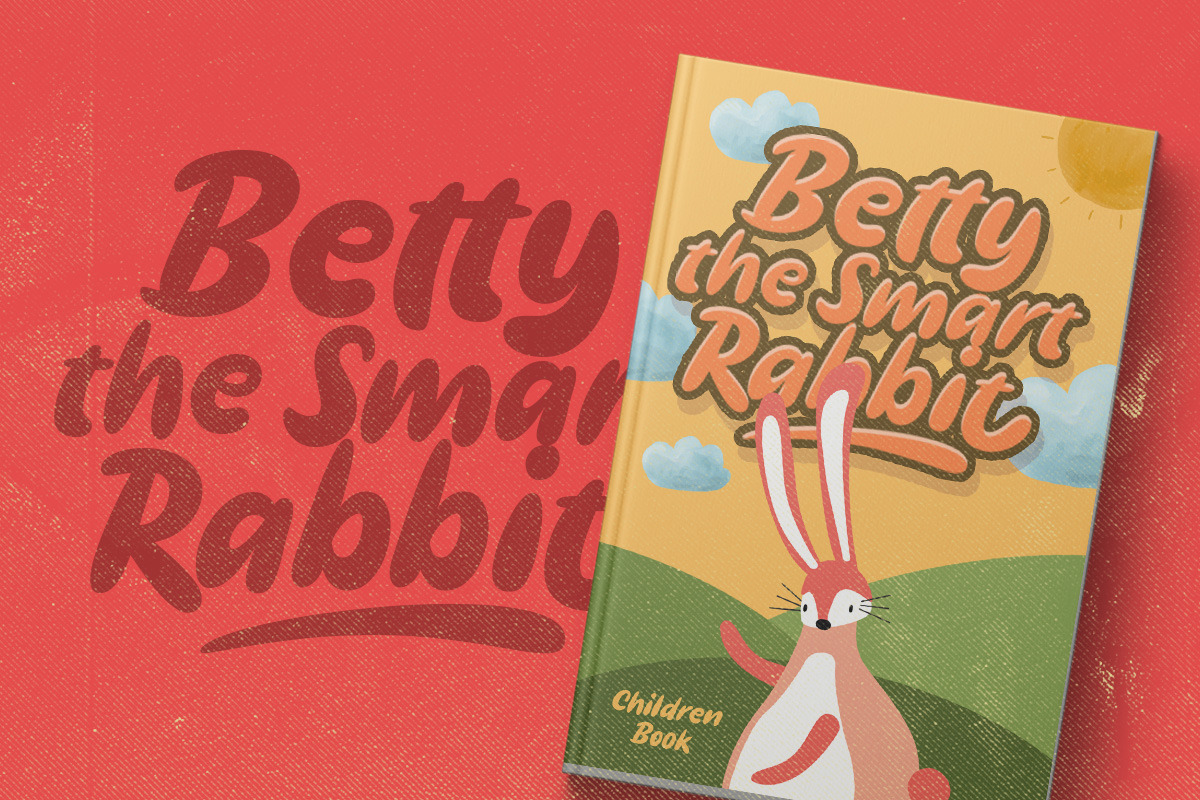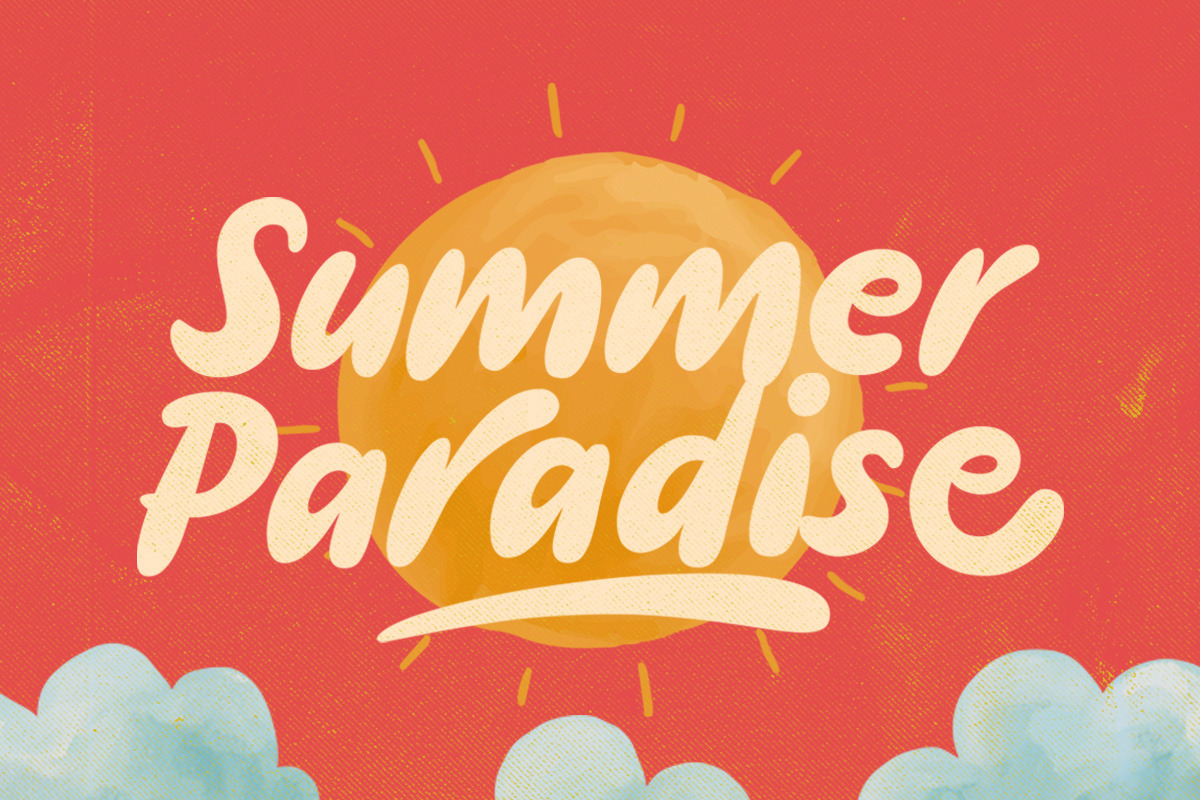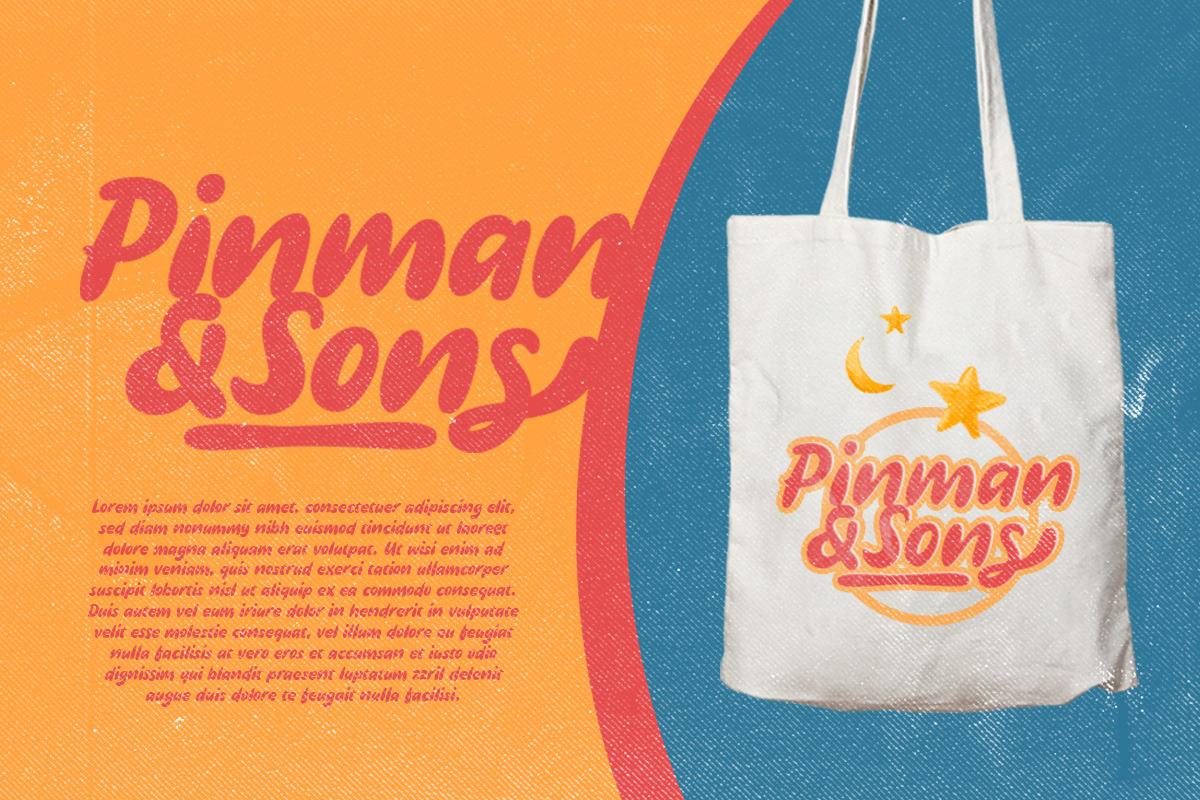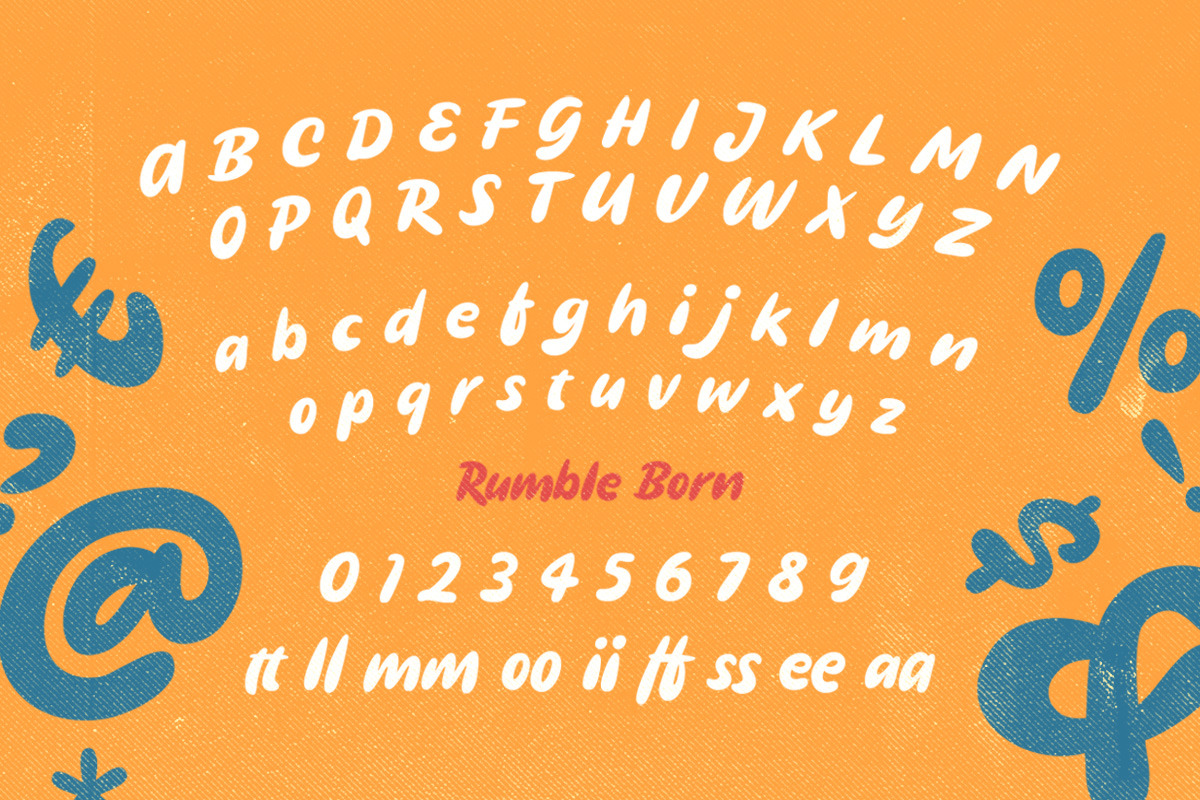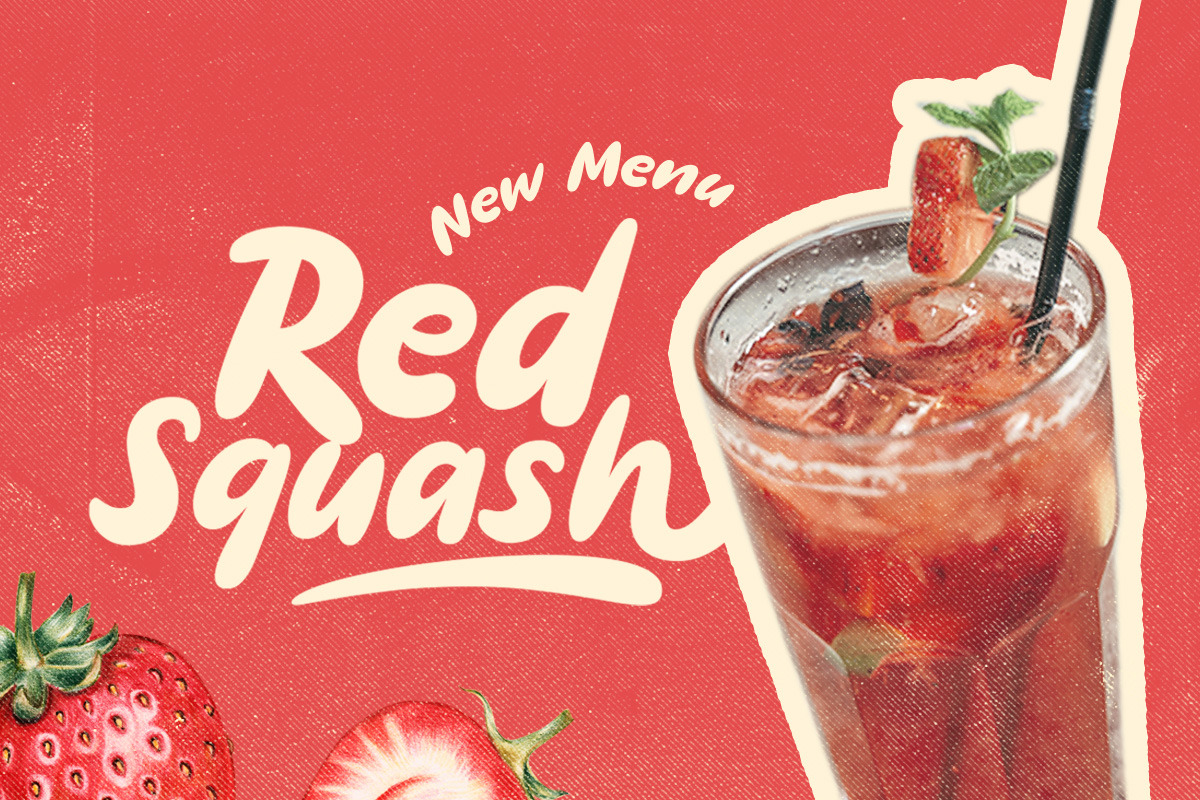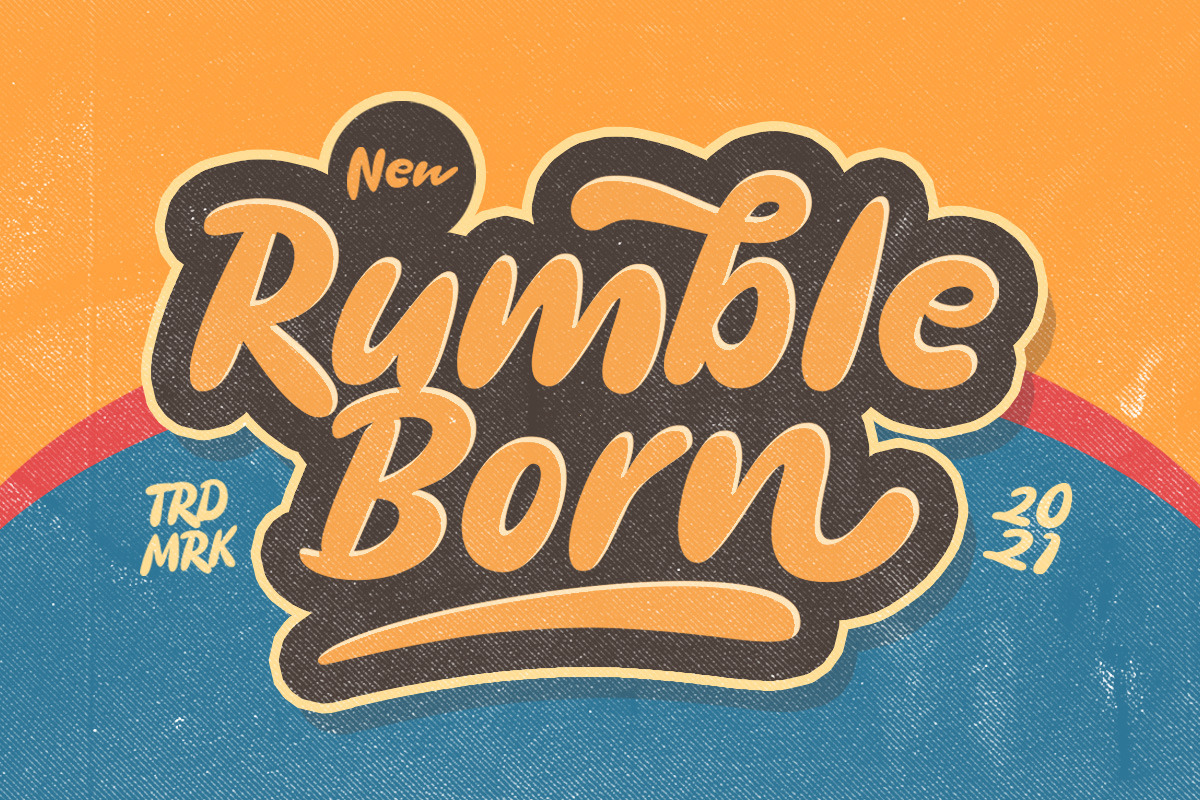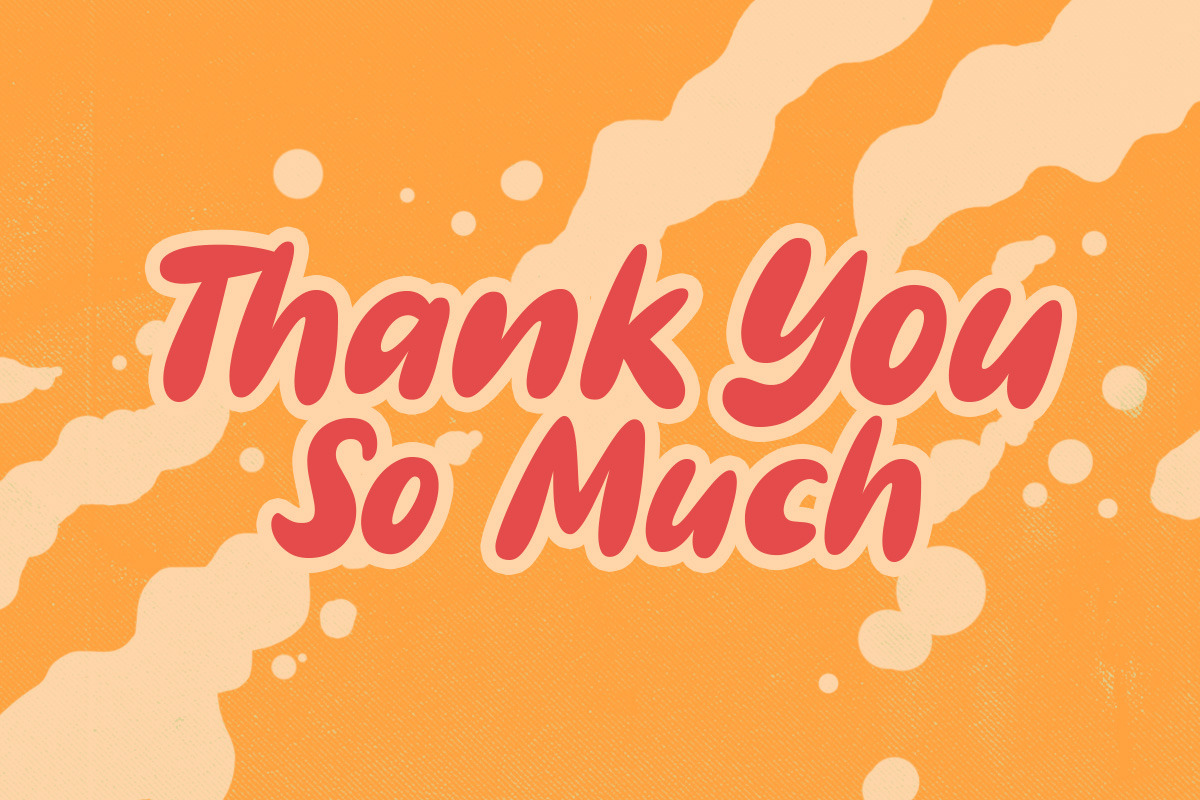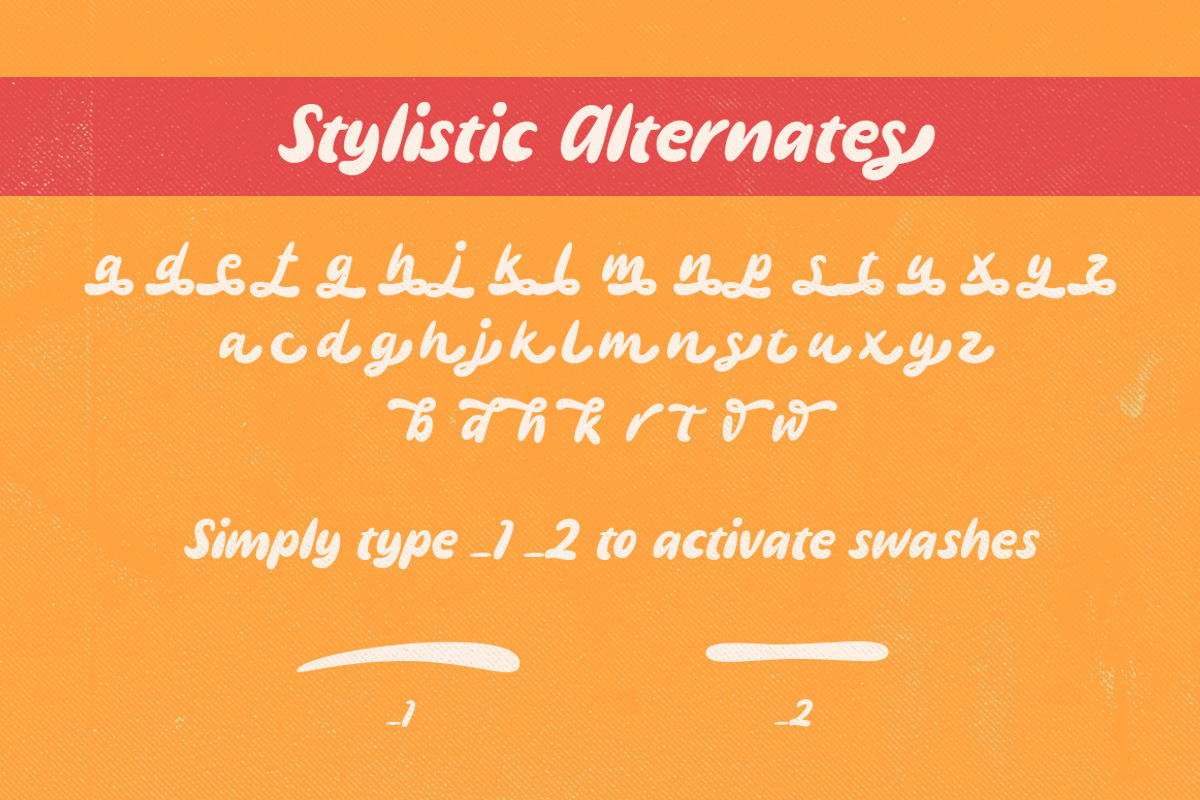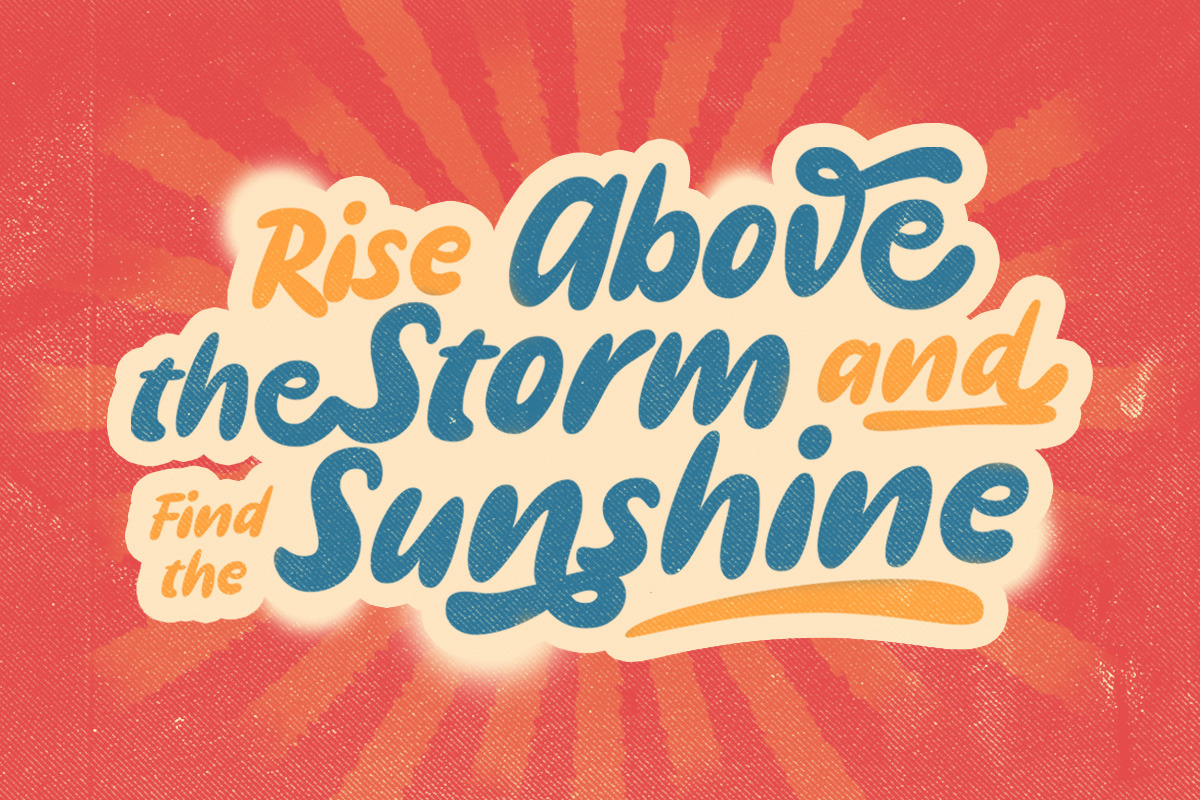
Rumble Born - Bold Display Typeface
Rumble Born is a retro bold script which will bring you back to 60s feel but still with fun and playful look. This font perfectly made to be applied especially in logo, and the other various formal forms such as invitations, labels, logos, magazines, books, greeting / wedding cards, packaging, fashion, make up, stationery, novels, labels or any type of advertising purpose.
- alternates
- swashes